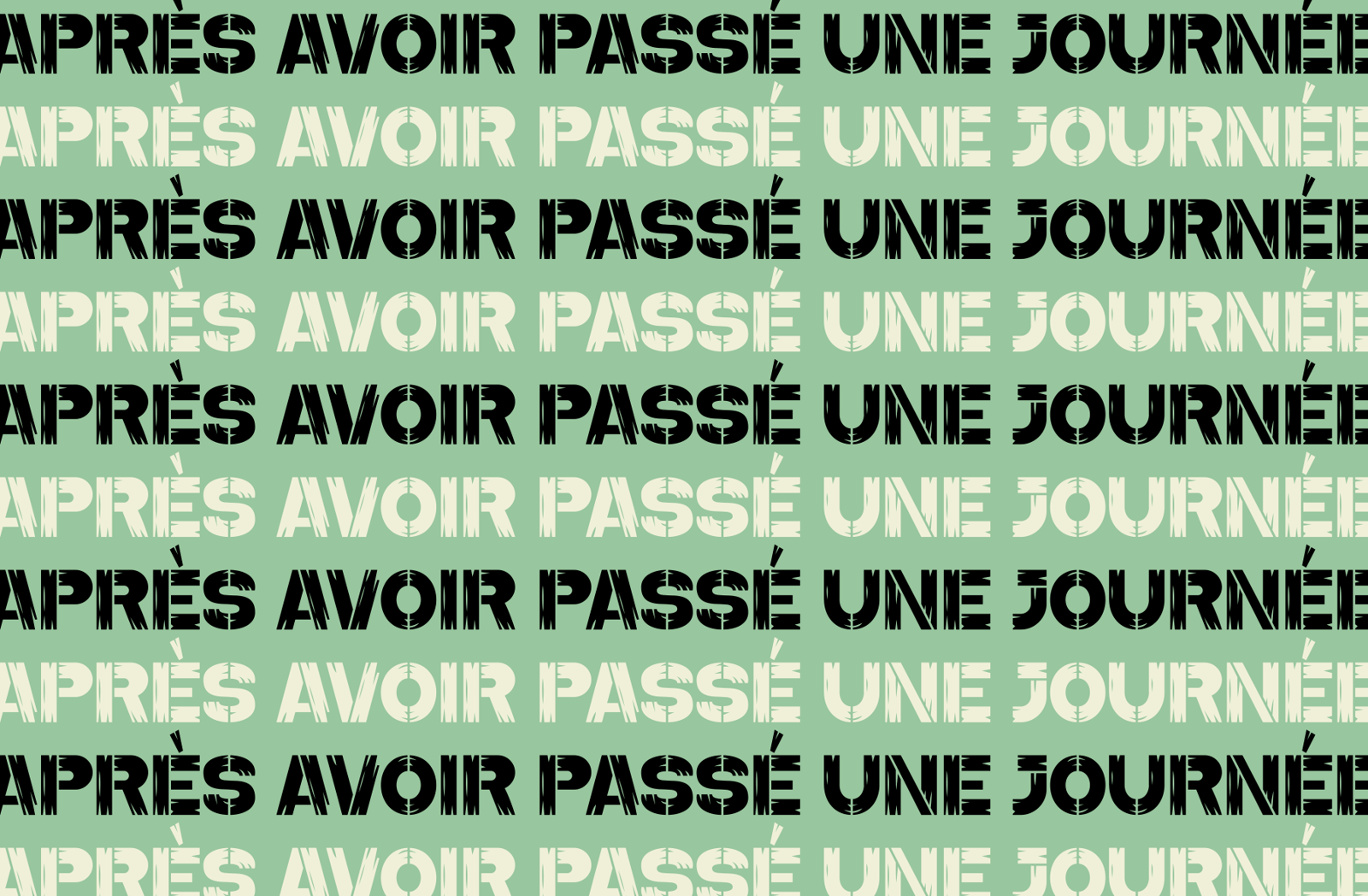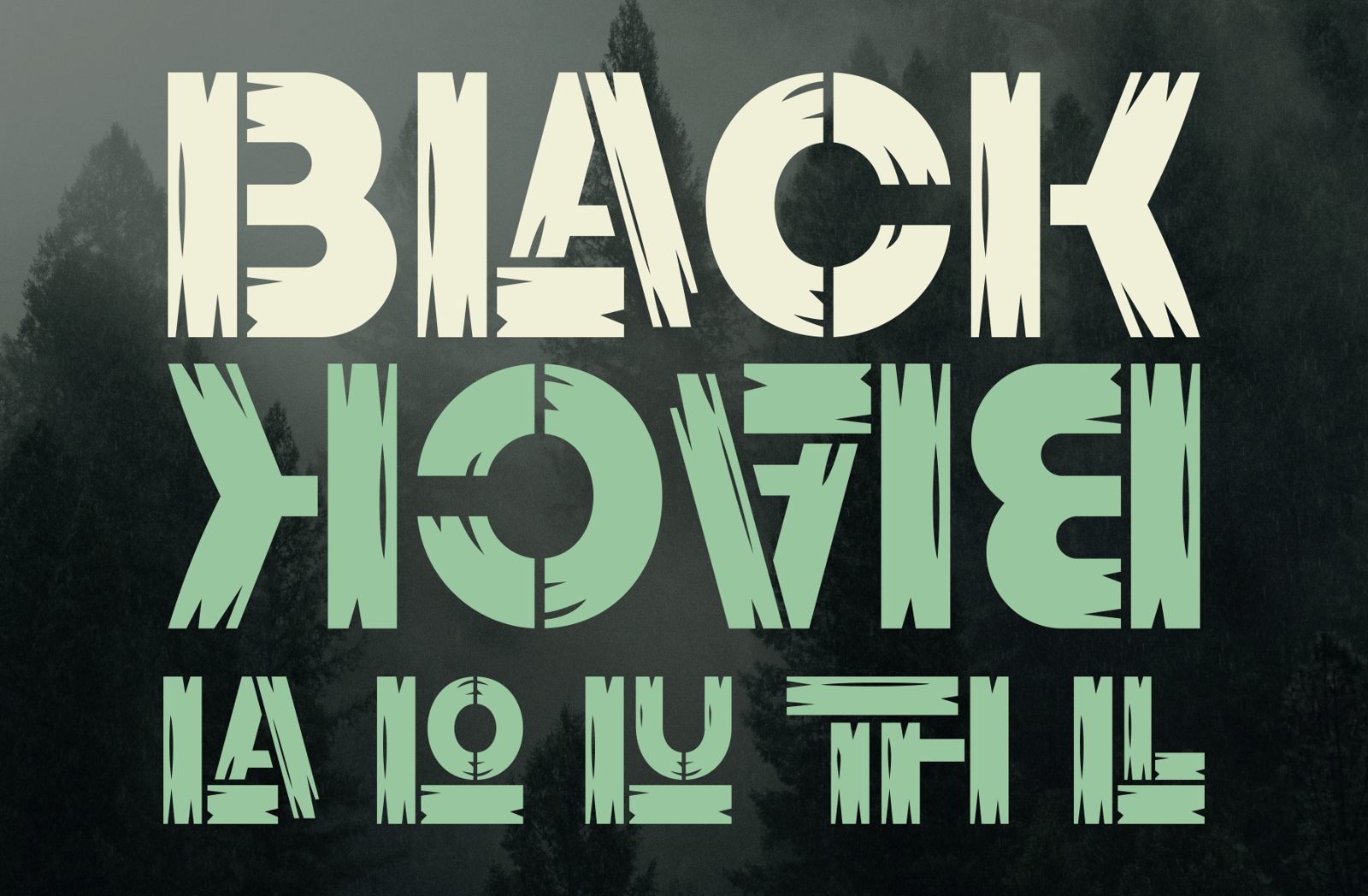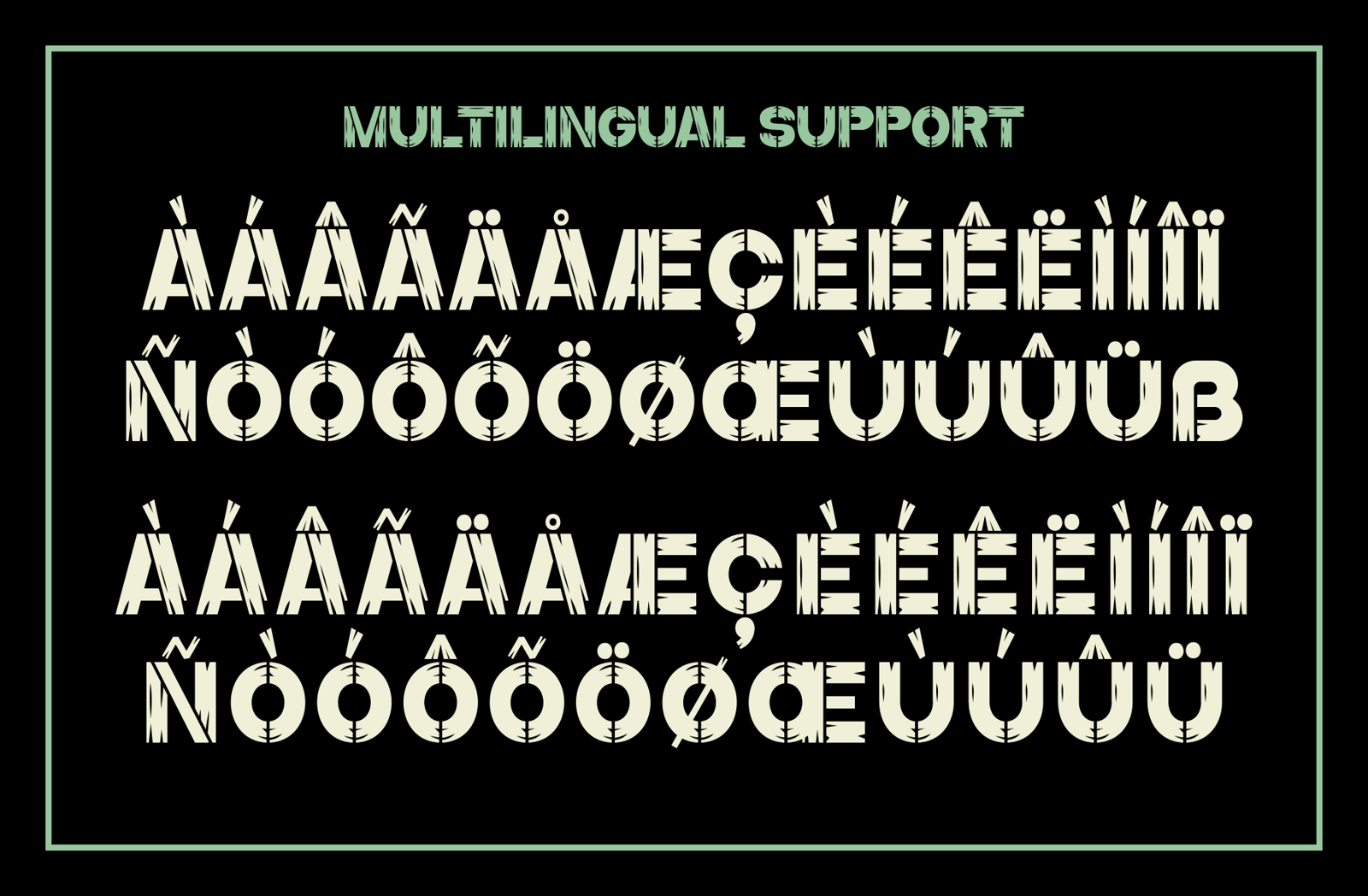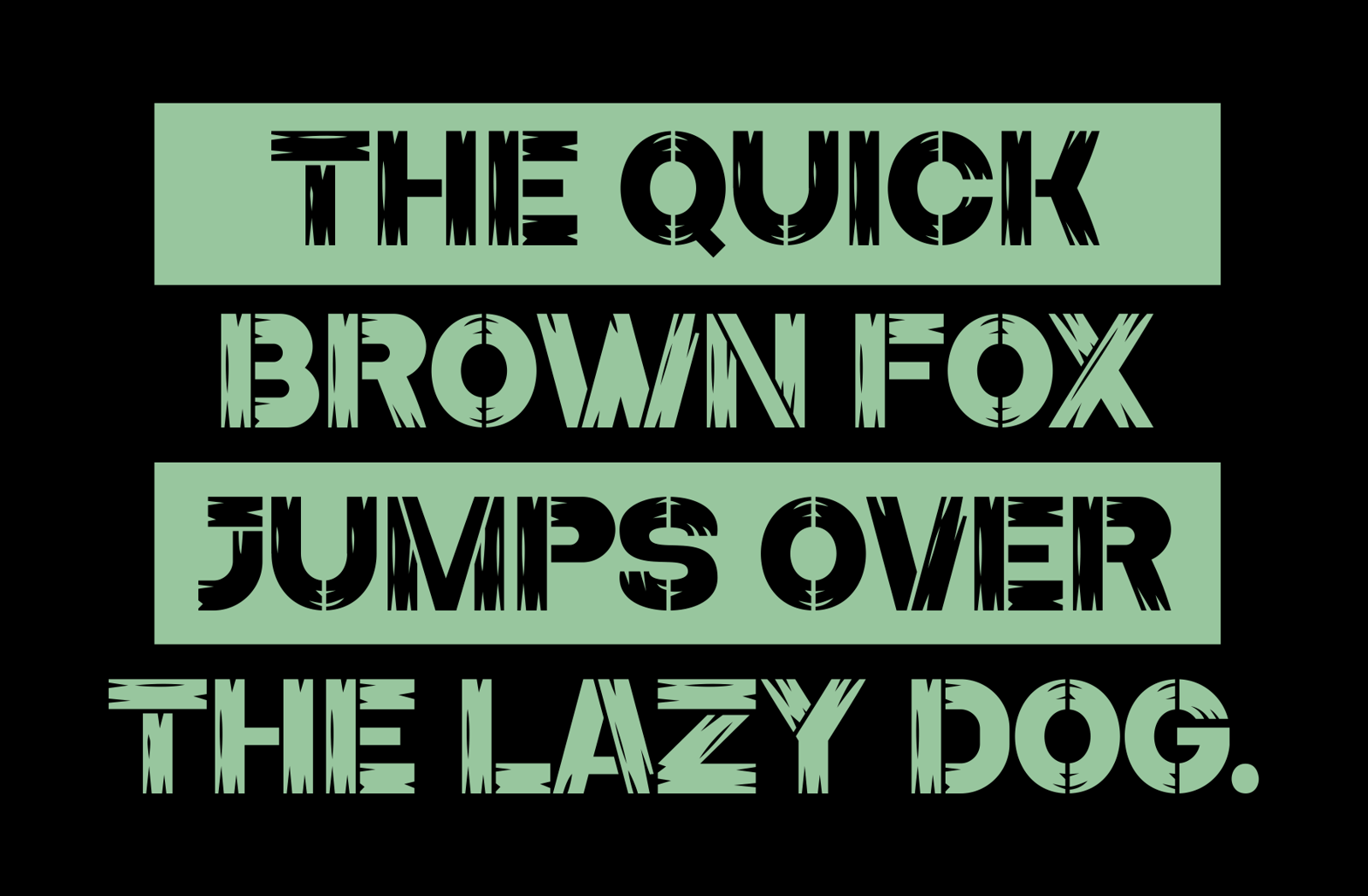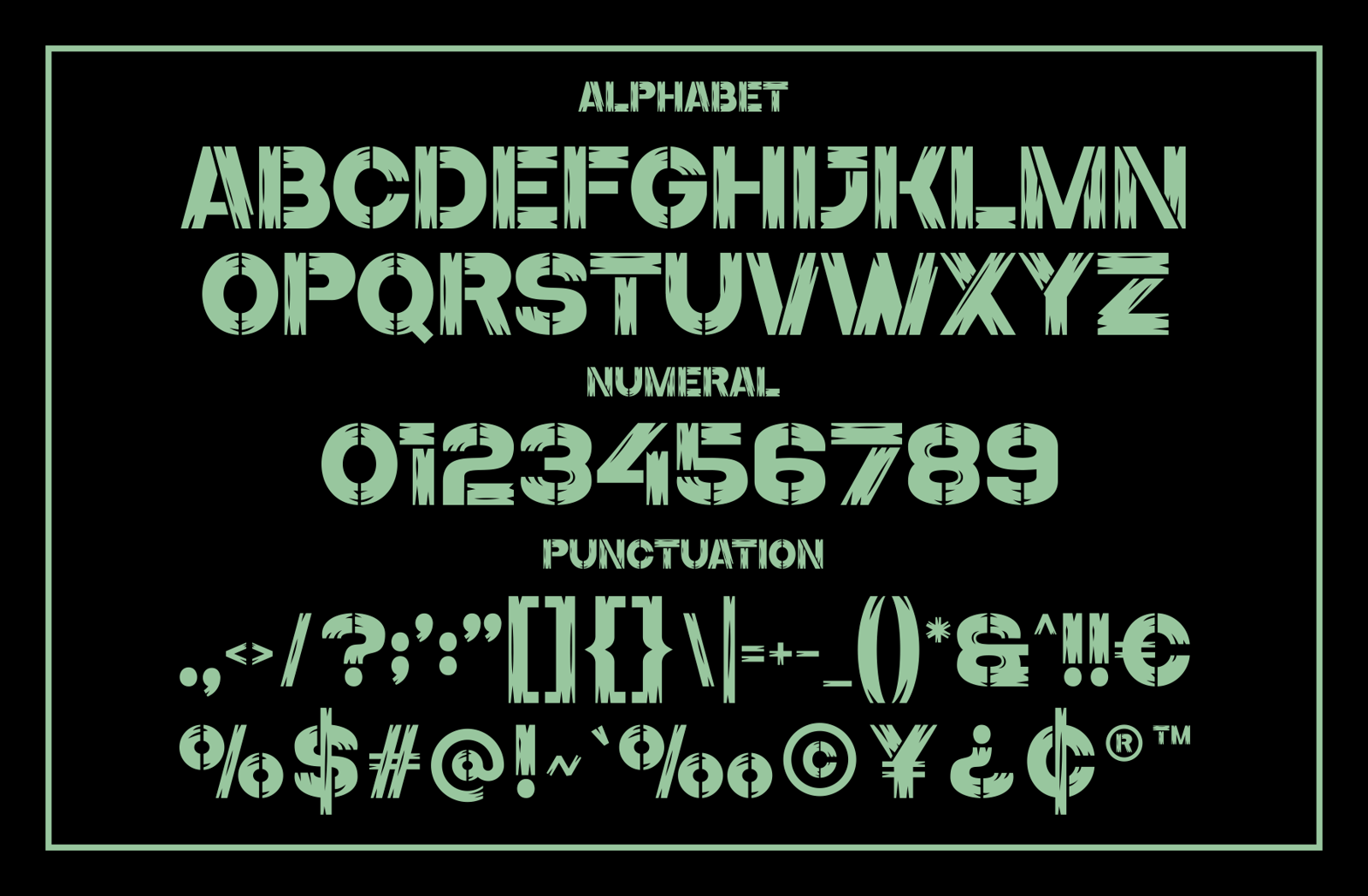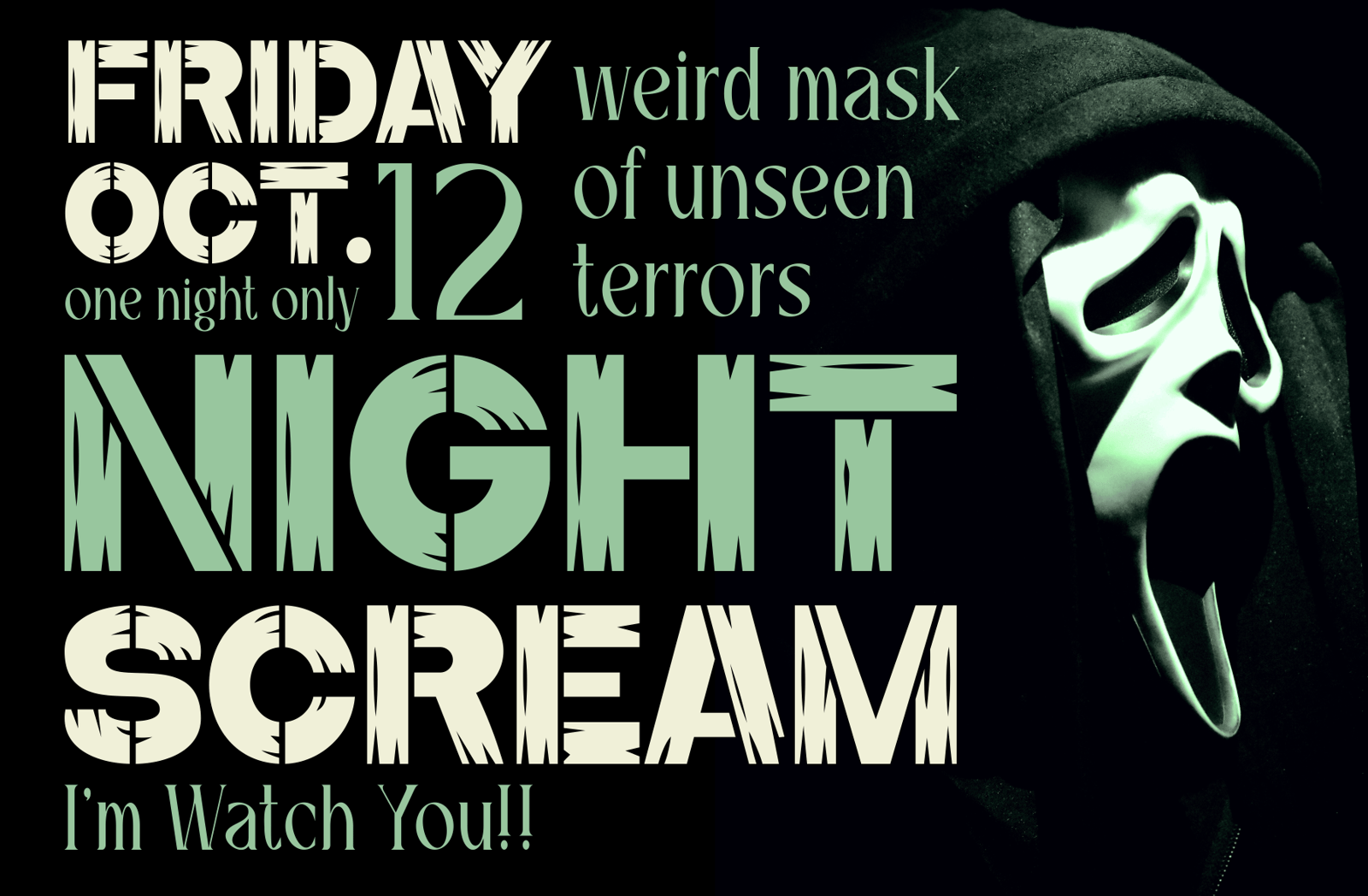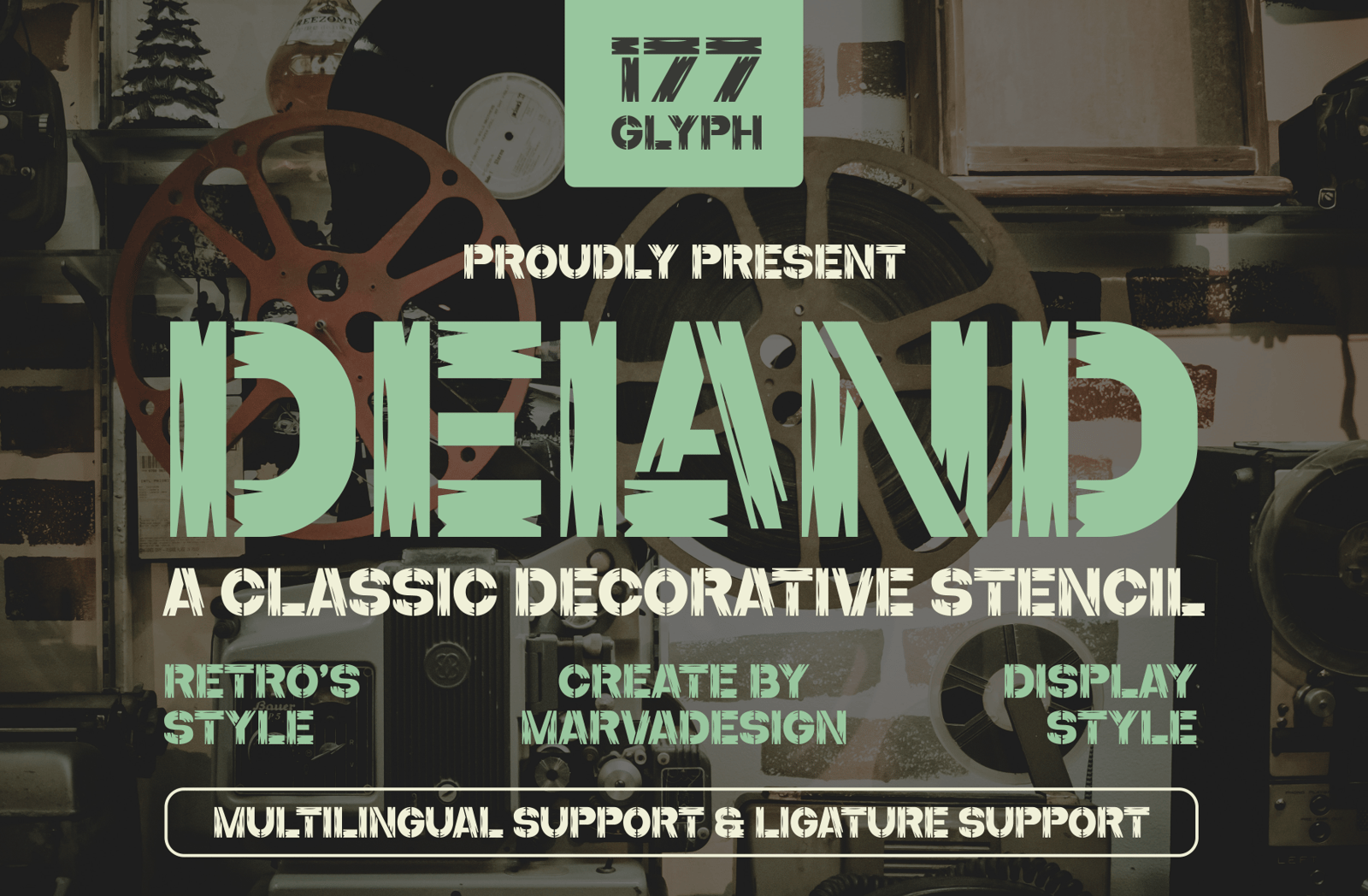
Deland Font
Introducing Deland is a bold and striking decorative stencil font with a retro flair, perfect for vintage-inspired designs, posters, branding, and display purposes. Featuring sharp edges and a distressed texture, it brings a rugged yet stylish aesthetic that stands out in any creative project. With multilingual and ligature support, Deland is both versatile and unique, making it an excellent choice for designers seeking a mix of nostalgia and modernity.